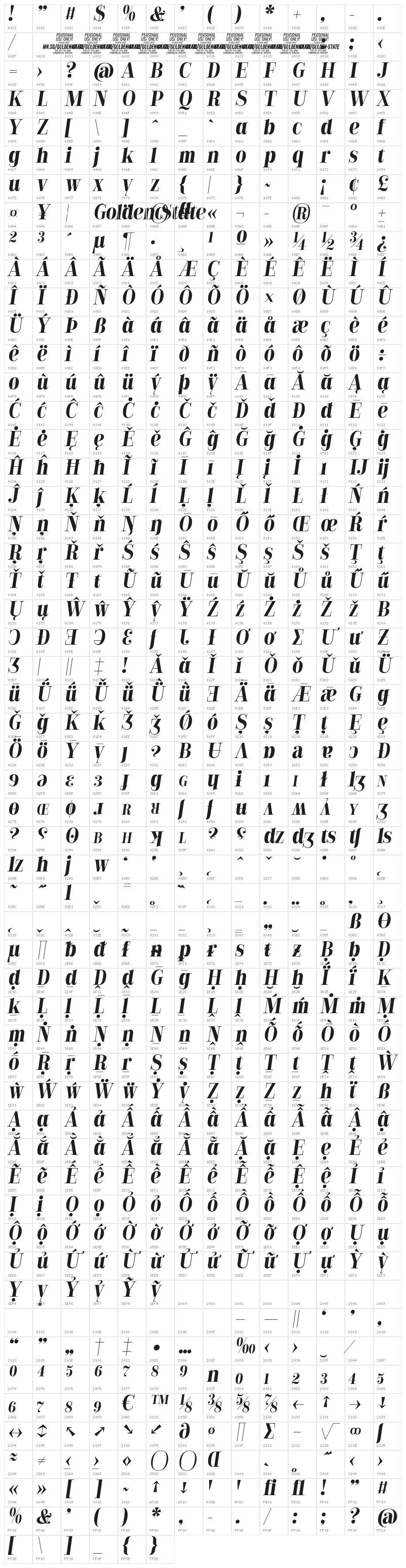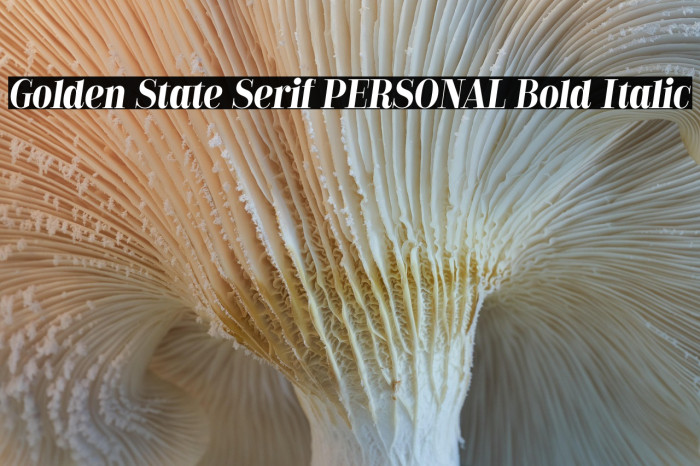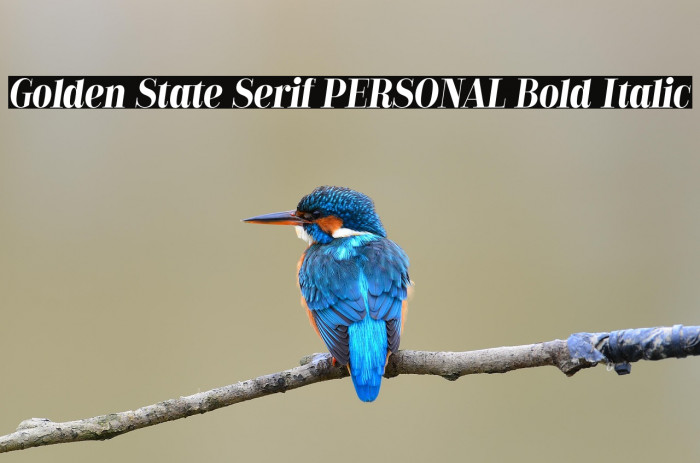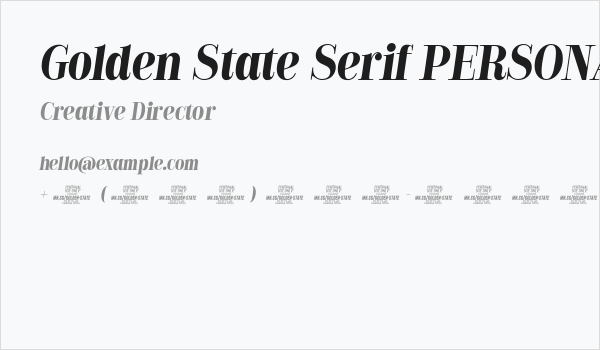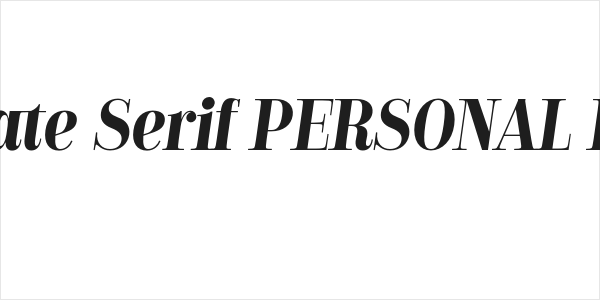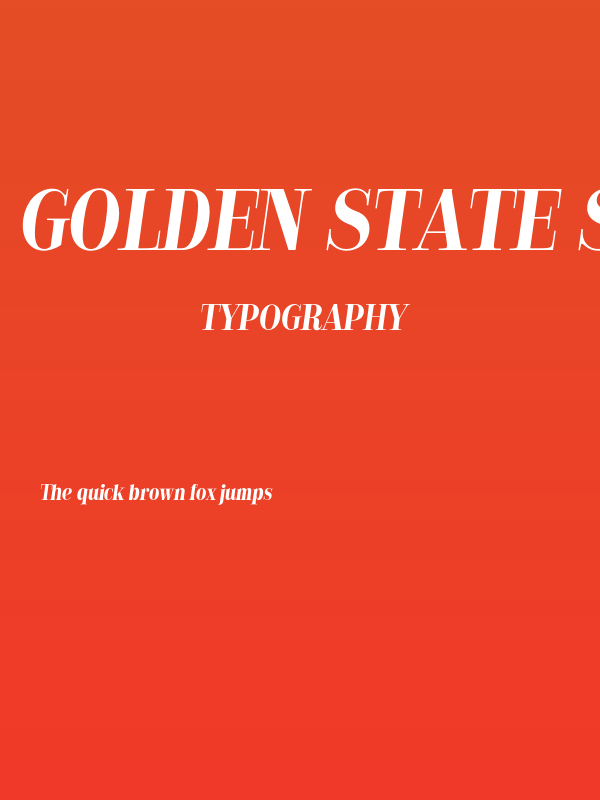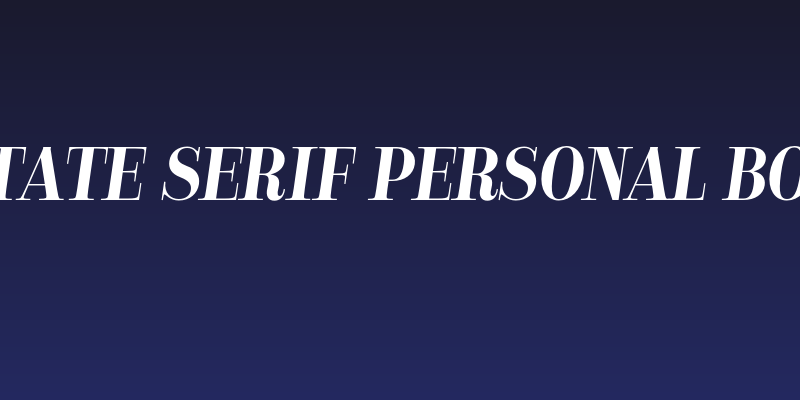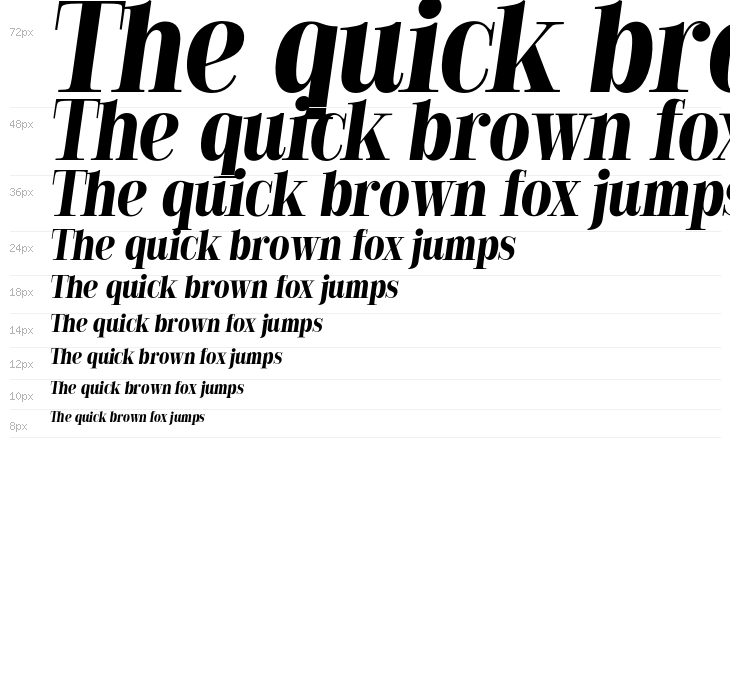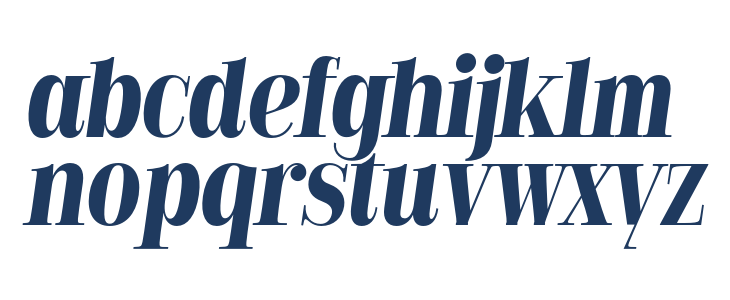
Golden State Serif PERSONAL Bold Italic Font
Golden State Serif PERSONAL Bold Italic Description
This font features a bold and italicized serif style, characterized by its elegant and sophisticated appearance. The uppercase letters exhibit a classic serif design with a slight slant, adding a dynamic and stylish flair. The lowercase letters maintain a consistent italic angle, providing a harmonious flow across text. The numerals are bold and clear, ensuring readability while maintaining the font's overall aesthetic. Special characters are designed with the same attention to detail, offering versatility for various design needs. The font's bold weight and italic style make it suitable for impactful headlines and titles, while its classic serif elements lend a timeless quality.
| Use Case | Headlines, Logos, Editorial design |
| Proposed Projects | Ideal for editorial design, book covers, luxury branding, and elegant invitations. |